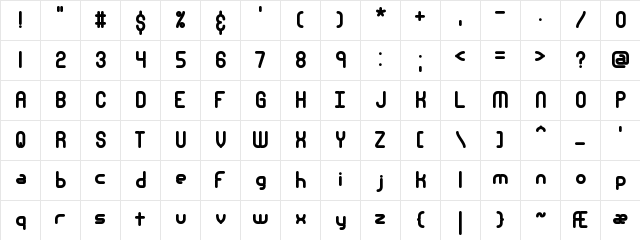
Complete Nanosecond Thick BRK Normal glyph index. Displaying only characters natively supported by Nanosecond Thick BRK Normal font.
Nanosecond Thick BRK is a composed and adaptable typeface that performs quietly and consistently across a wide range of design contexts. Its narrow stance lets it pack a punch even in space-constrained designs.
Pro Tip: Use Nanosecond Thick BRK in both headline and body roles to test its range before committing to a single application.